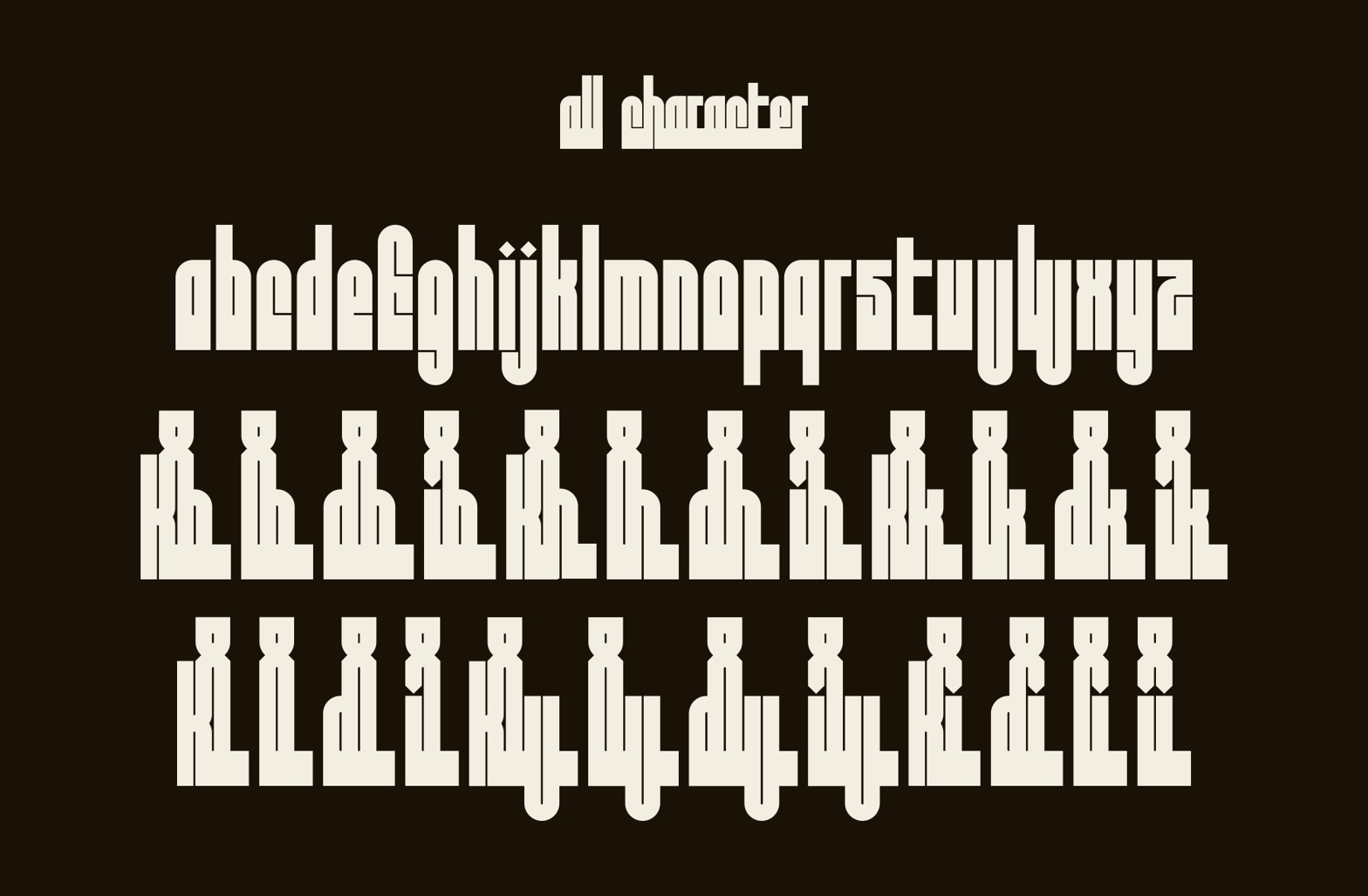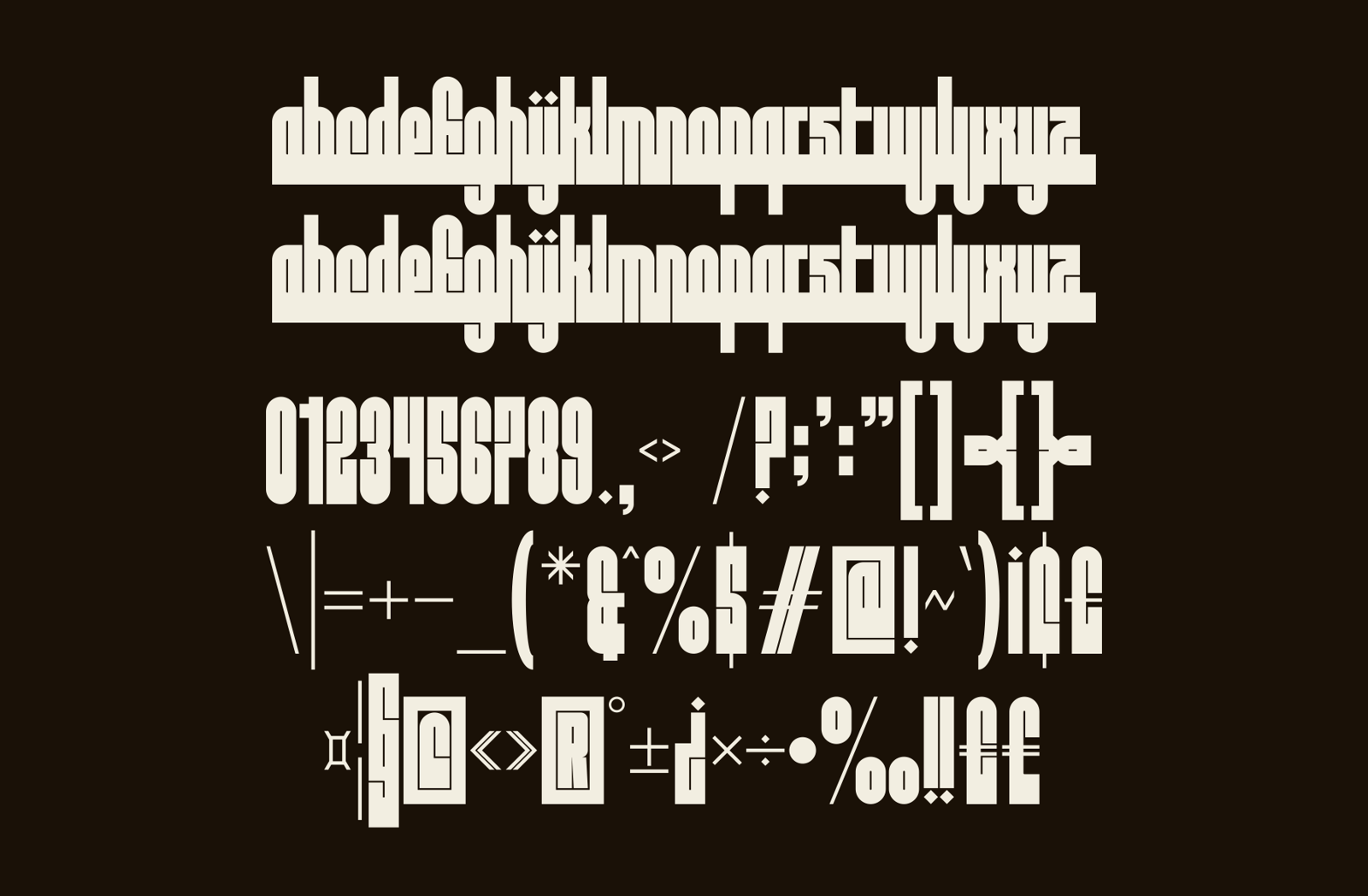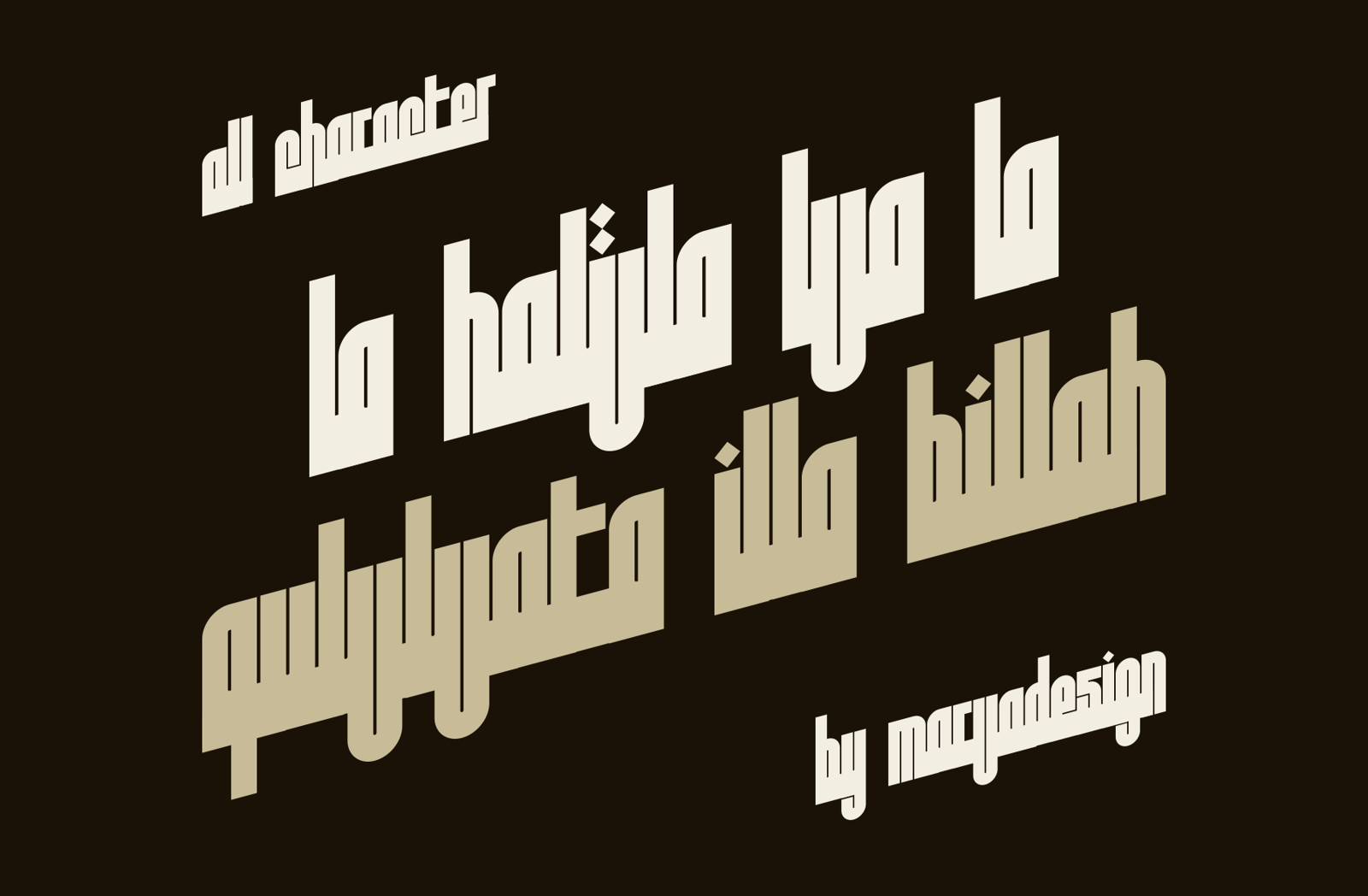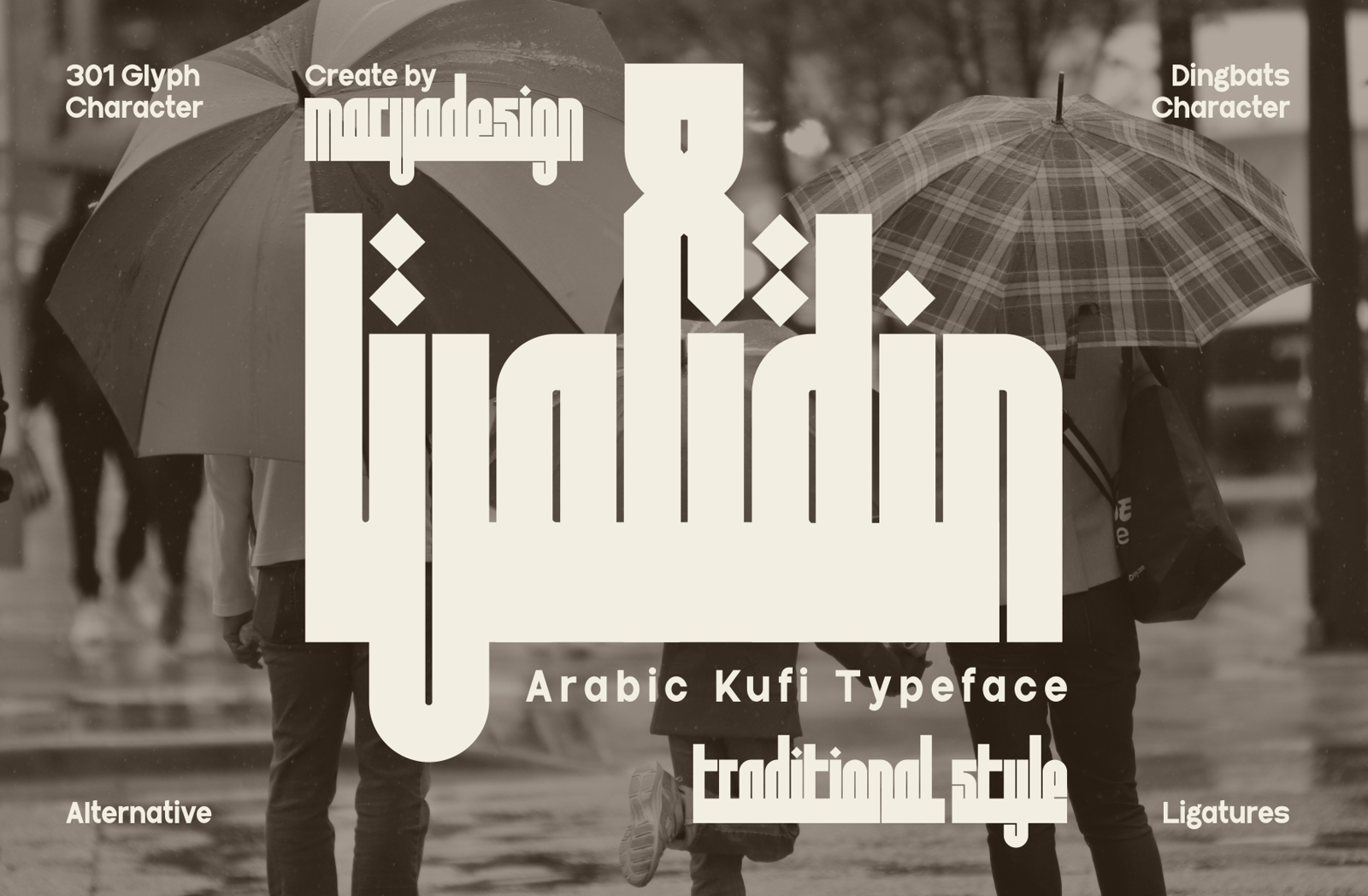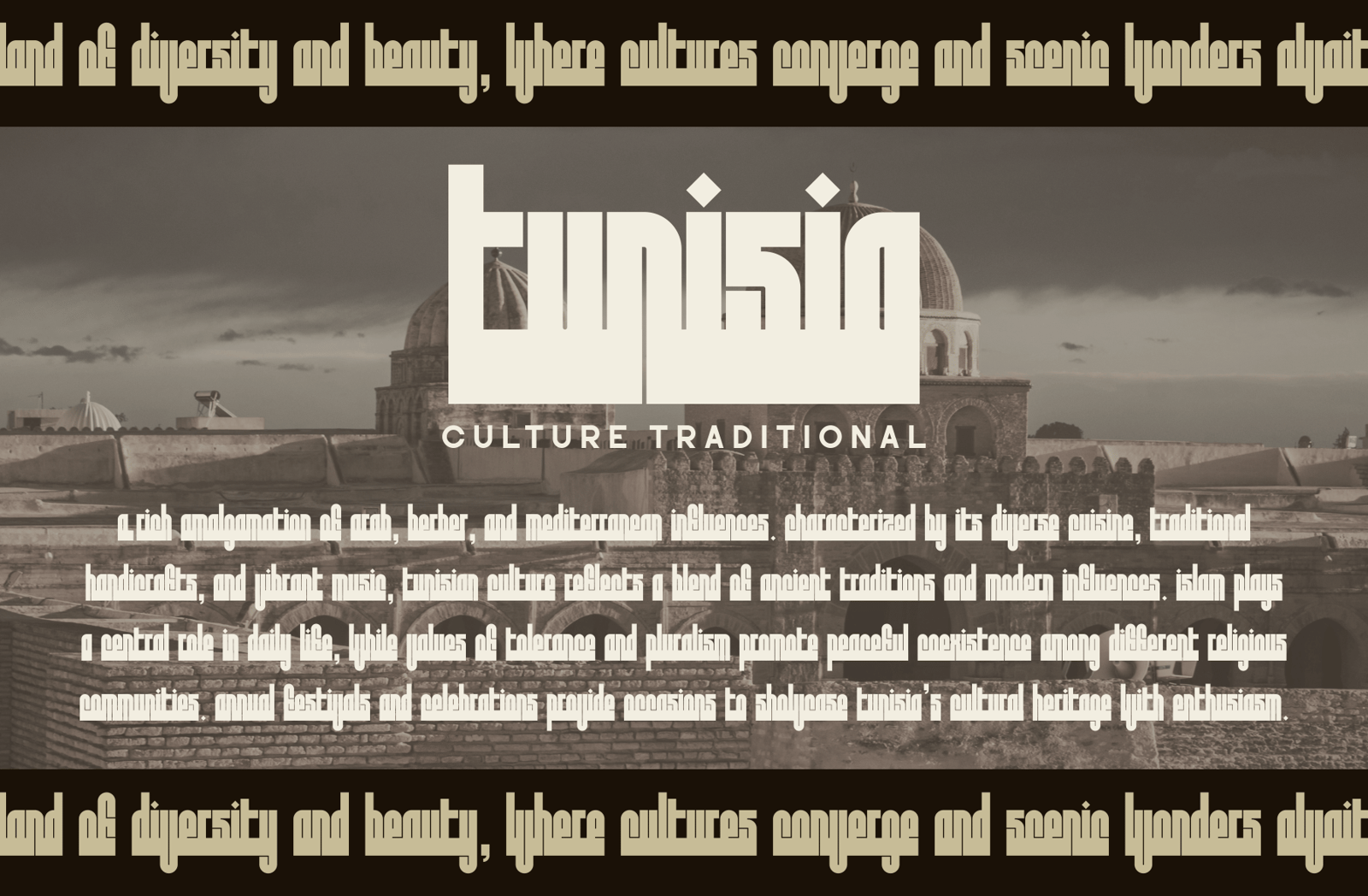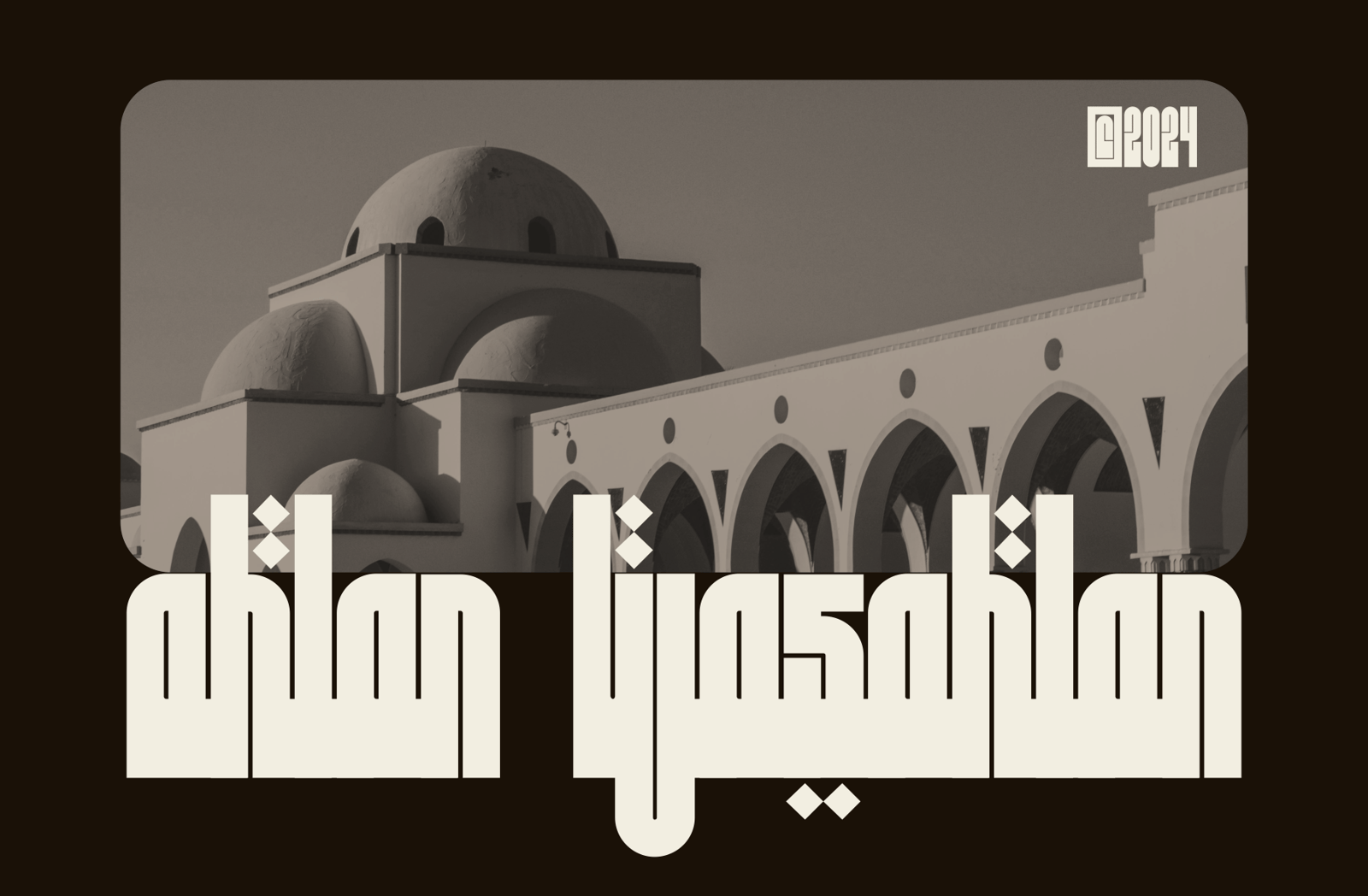
Walidin Font
Introducing our new product Walidin Font - Traditional Arabic Kufi Font Walidin Font - Dingbat Display Font authentic display font. Kufi is an angular and geometric style of Arabic calligraphy that dates back to the 7th century. It features thick, block-like letters with minimal curves, giving it a bold and modern appearance. Kufi fonts are often used in branding, logos, and architectural designs. The font is suitable for any branding project like logo, Template Design, Product, tshirt and many more. outstanding in a wide range of contexts.